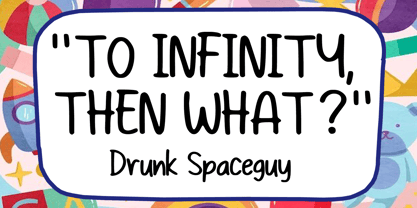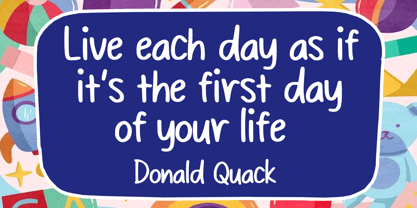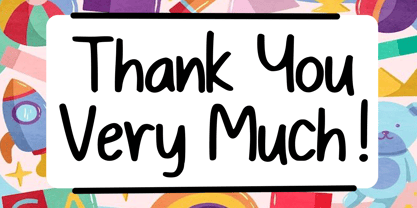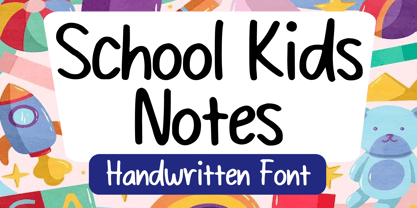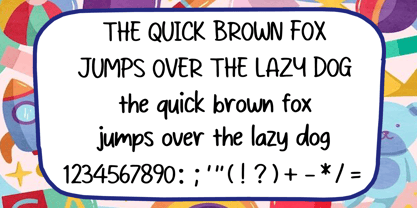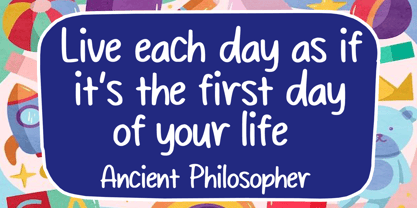
School Kids Notes
by Mvmet
The School Kids Notes Font Family was designed by Gabriel Valentinus and published by Mvmet. School Kids Notes contains 1 styles. More about this family
Introducing School Kids Notes — a playful yet practical handwriting-inspired font that is perfect for your everyday design adventures. This versatile typeface is crafted to bring your school projects and other creative endeavors to life, imbuing each design with an exemplary level of finesse. With School Kids Notes, you’ll have the ideal companion for a myriad of design scenarios, whether you’re creating captivating stickers, designing fabulous t-shirts, generating awe-inspiring logos, adorning book or magazine covers, conjuring up comic strips or cartoon illustrations, and beyond. Its unique flair and flexibility promise to give your designs an extra burst of cool, elevating them from everyday to extraordinary! Ideal for branding, web design, and editorial projects, School Kids Notes is a must-have for anyone looking to add a touch of whimsy and creativity to their work.
Designers: Gabriel Valentinus
Foundry: Mvmet
Mvmet is an Indonesia-based font studio which began making fonts in early 2020. Mvmet strives to make fonts fun and accessible for both the average computer user and professional designers, with original experimental fonts and affordable trend-setting commercial fonts. Mvmet also creates custom fonts for companies who want exclusive rights and a specific design for a typeface. Clients who have used Mvmet’s custom font services include some company in Indonesia and abroad.